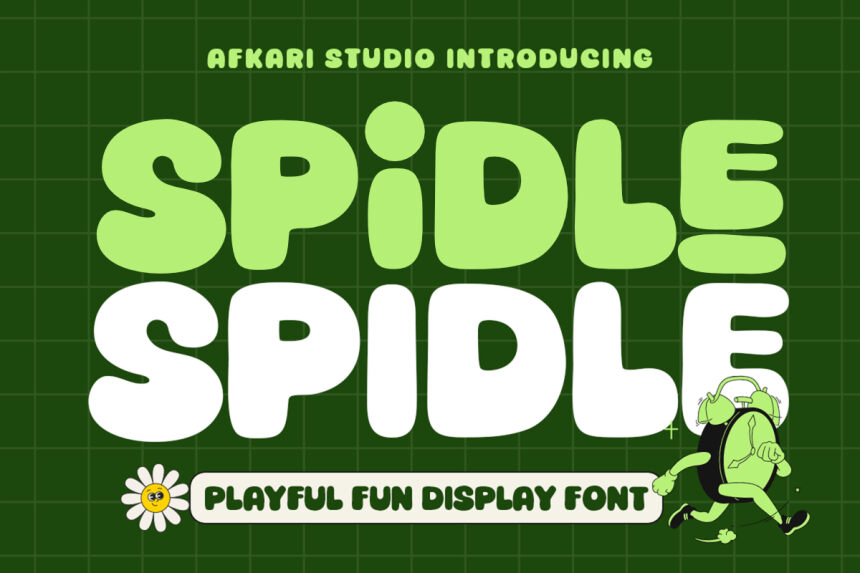
Spidle font by Musthafa Kamal Emje - Afkari Studio is a free cartoon display typeface with big, pillowy letters that feel like they’ve been cut from soft foam or squeezed out of a marker. The rounded shapes, chunky weight, and friendly rhythm make every word look bouncy and huggable, without slipping into chaos. It reads clearly even at larger sizes, so you can go bold without losing legibility.